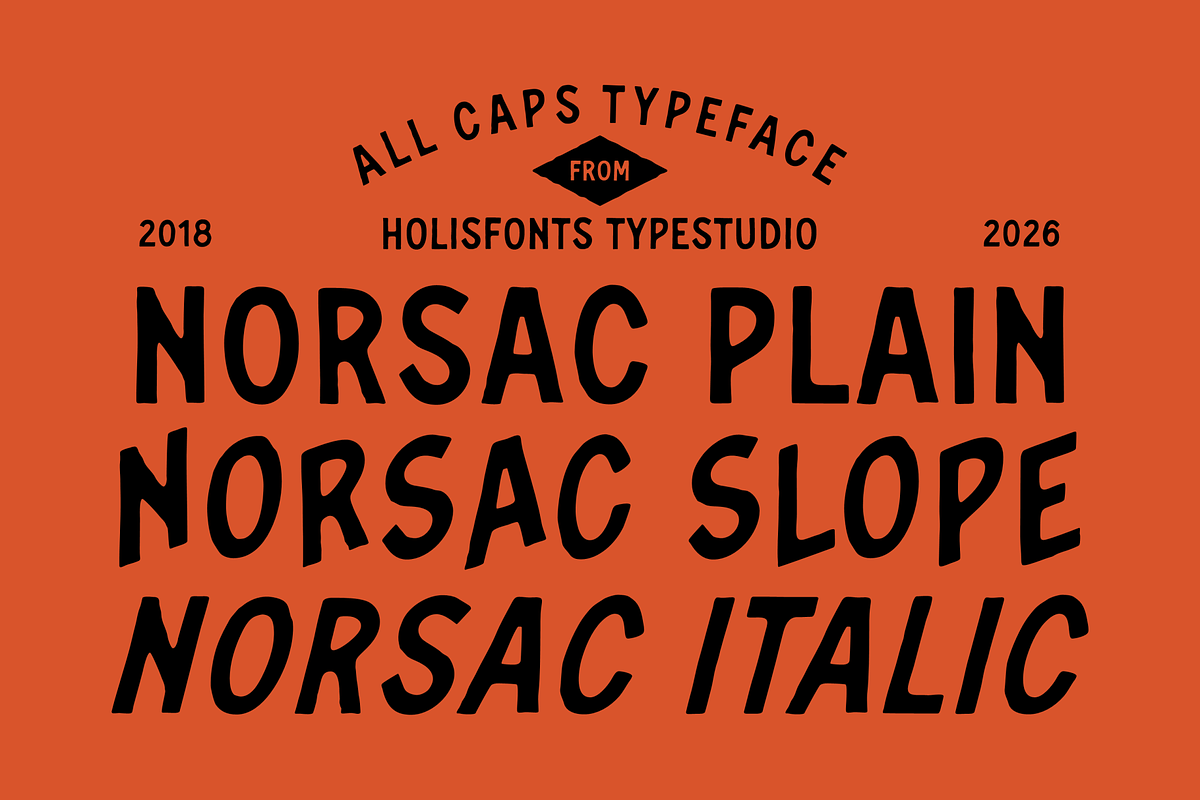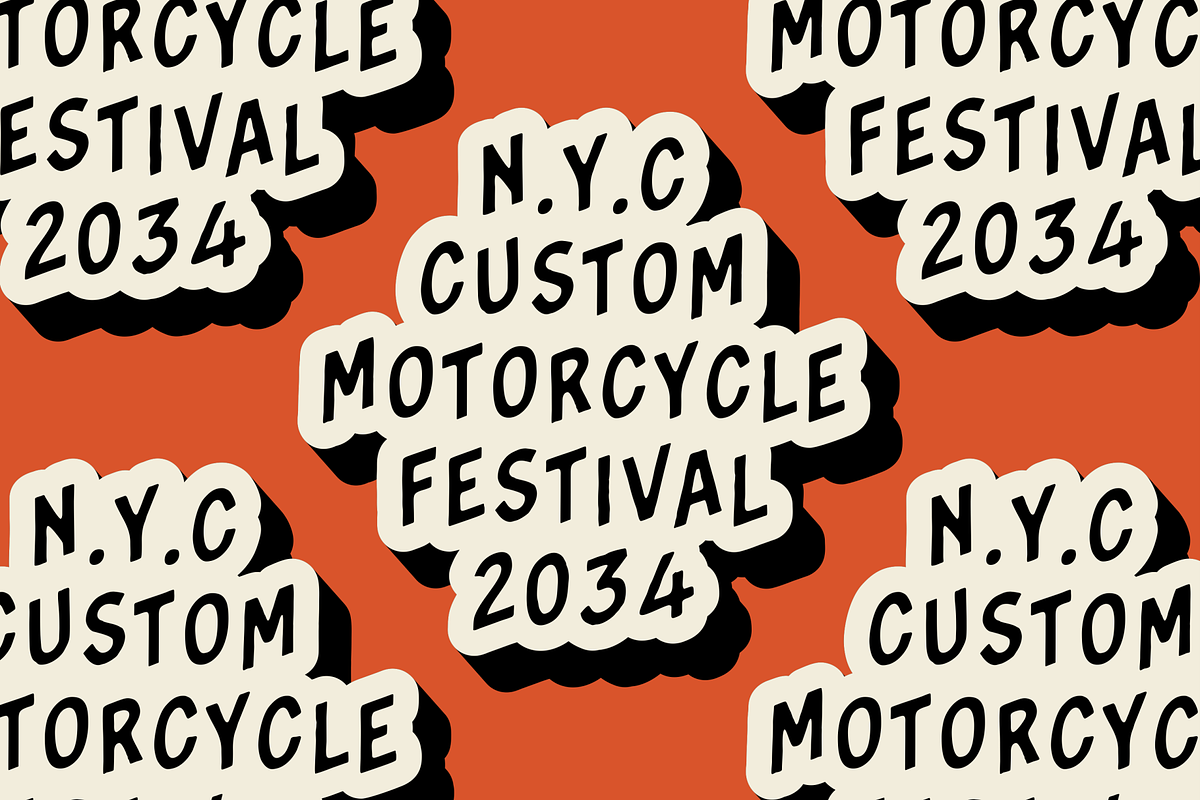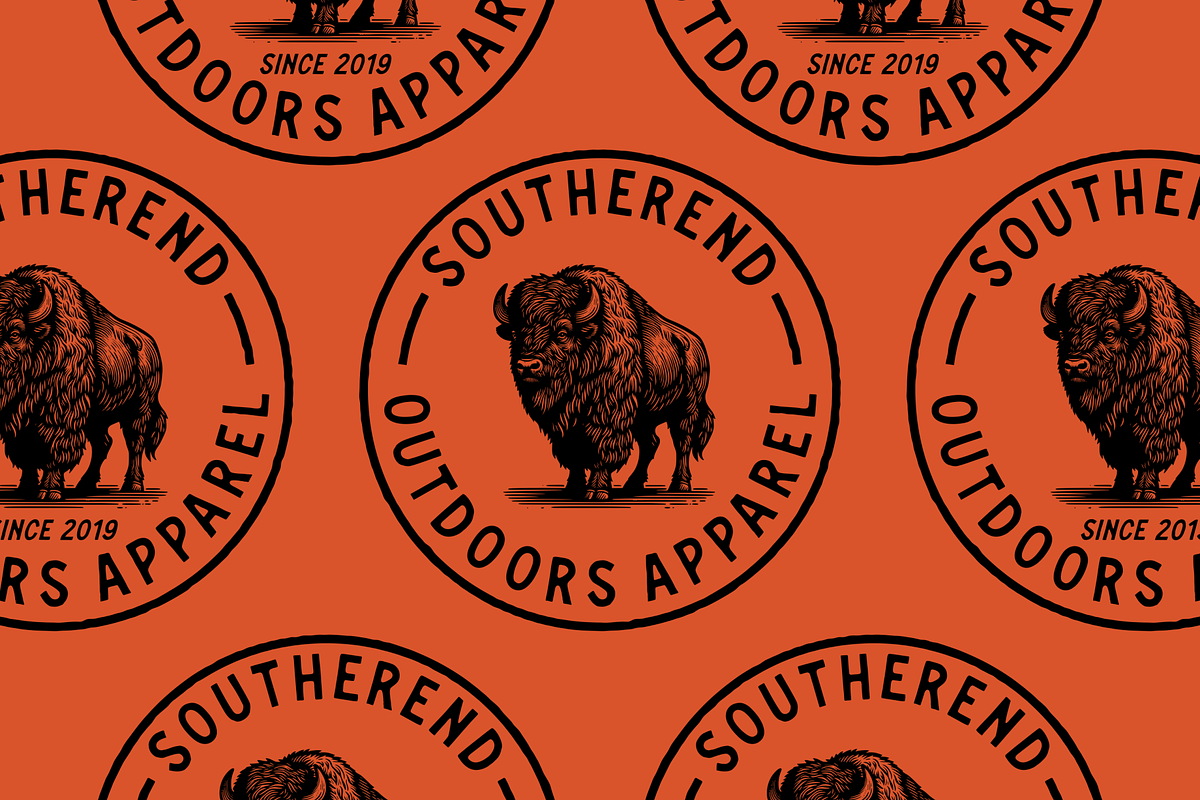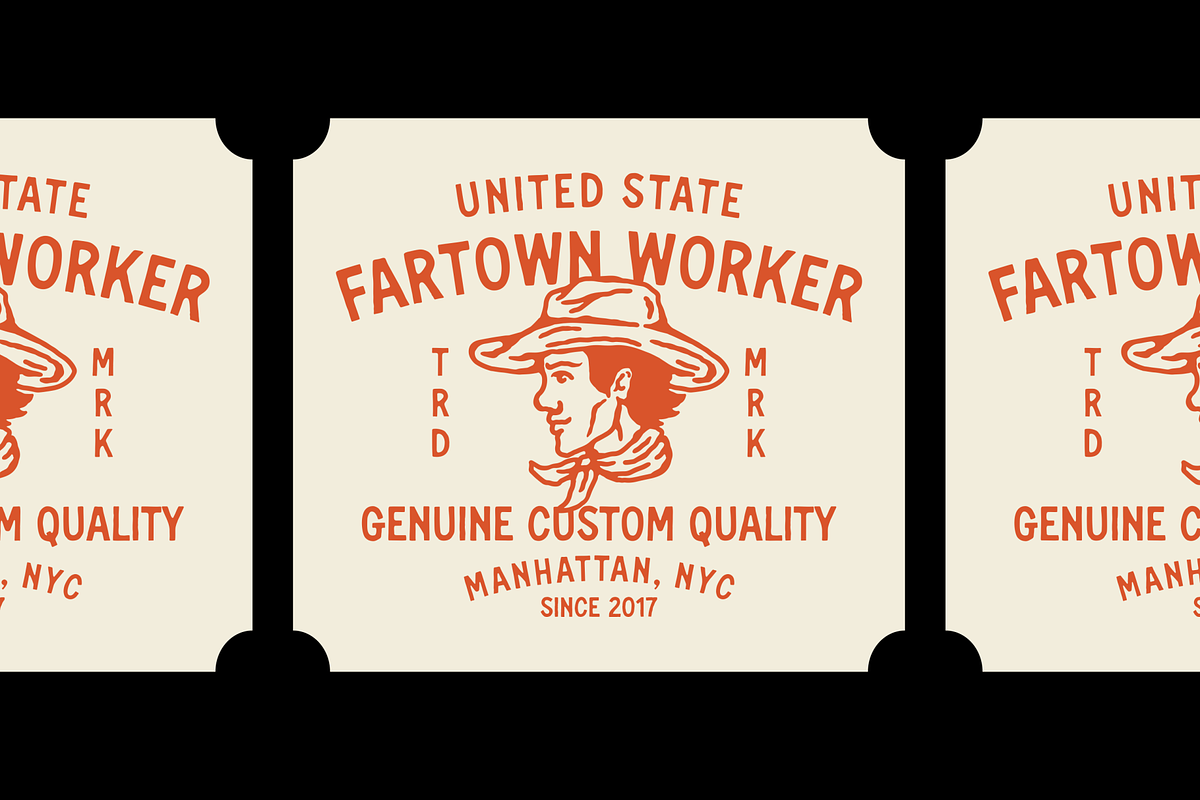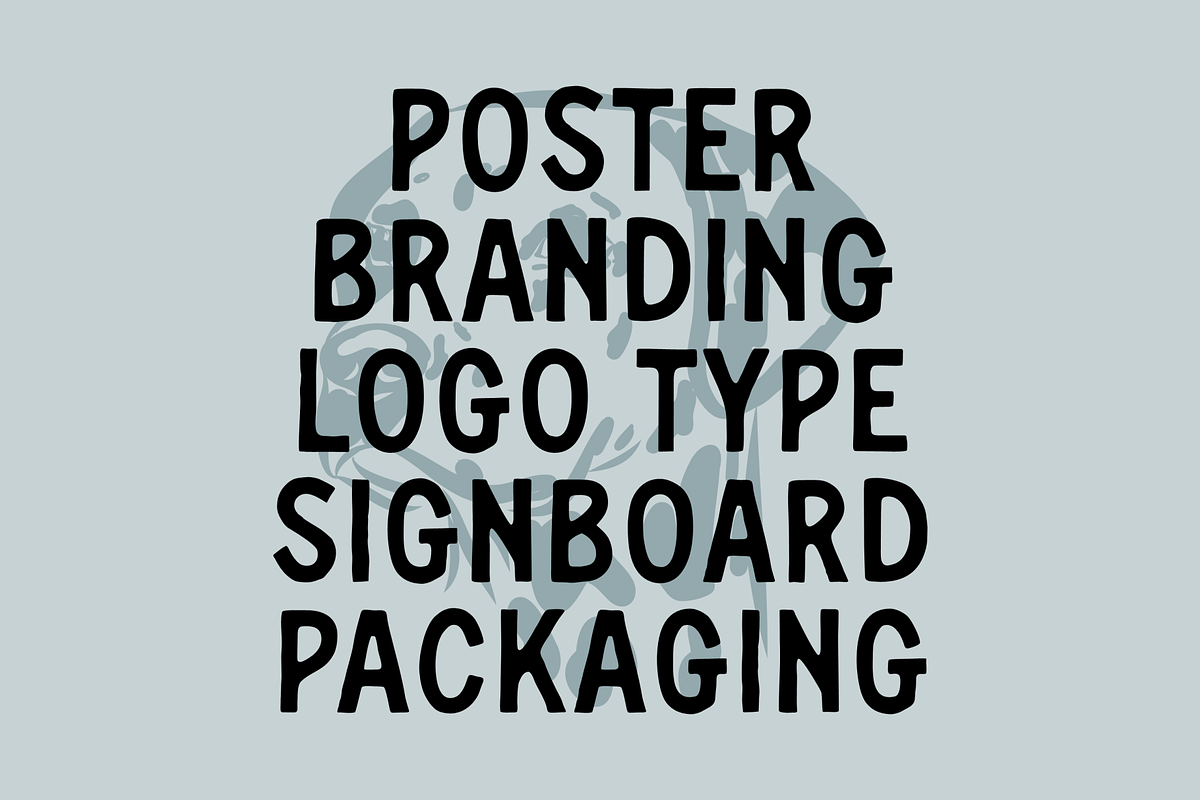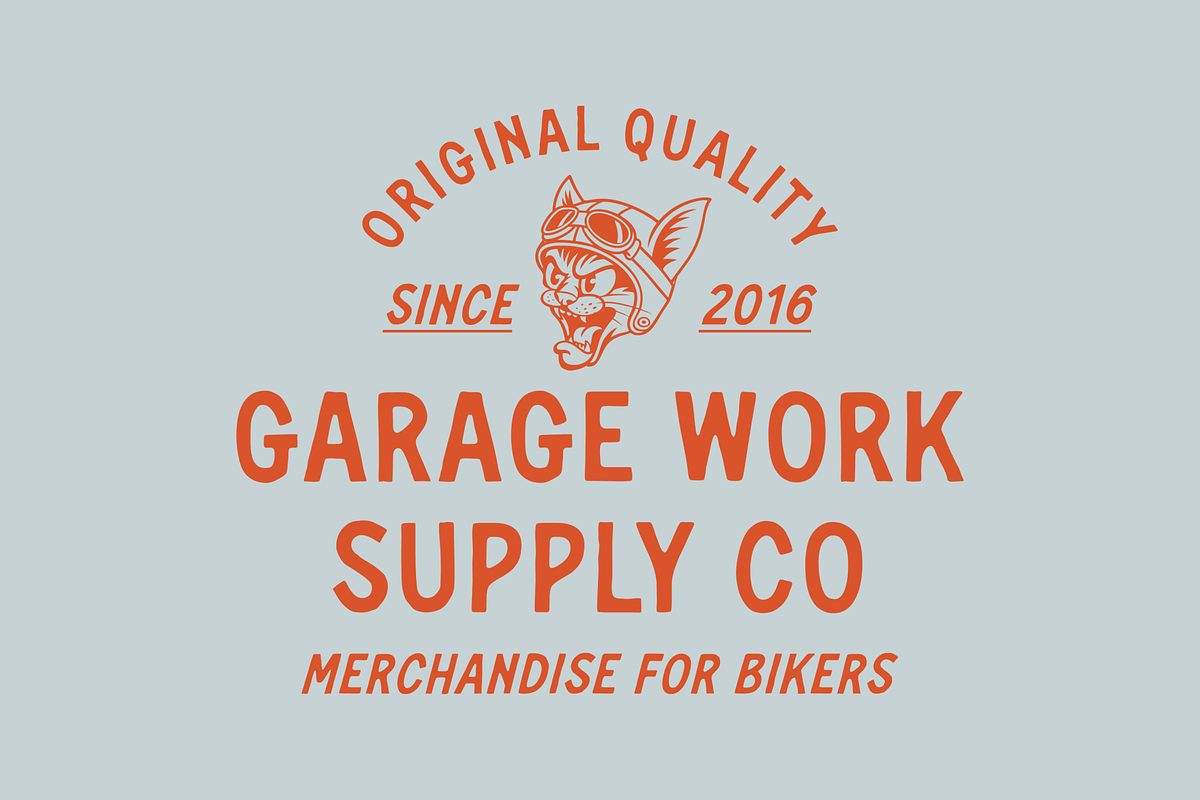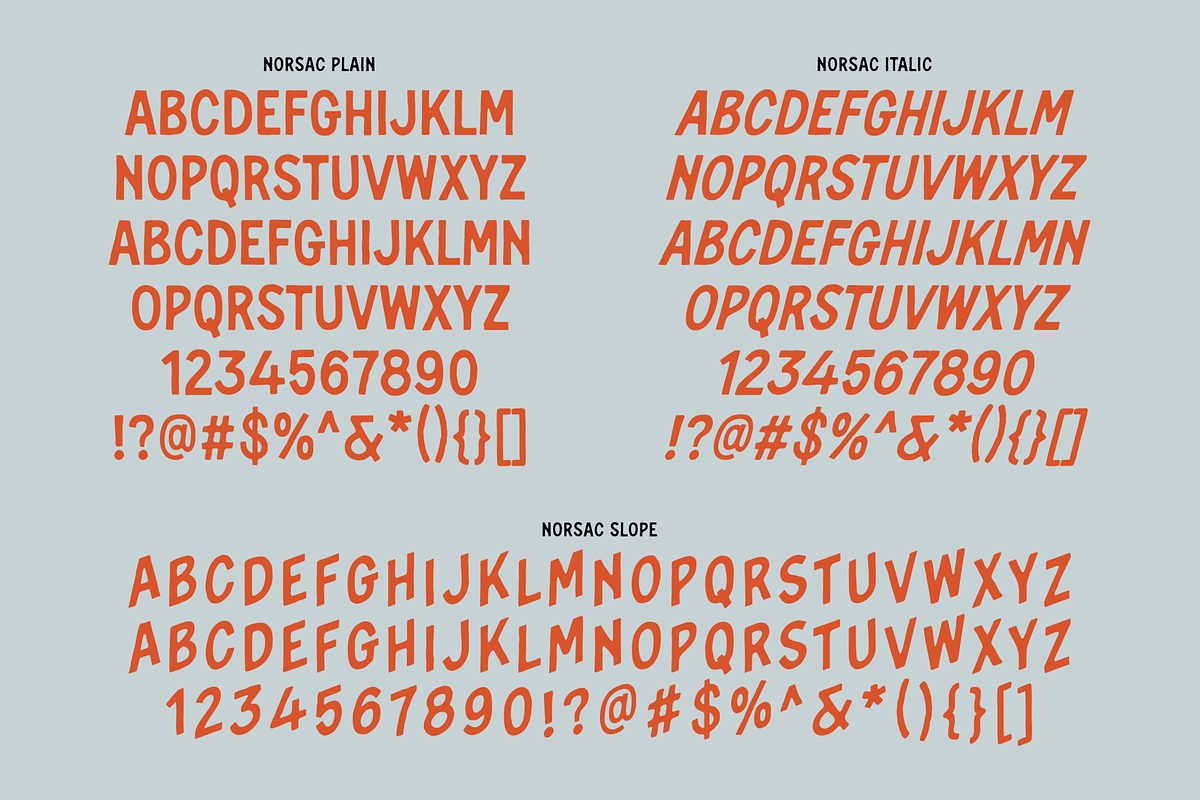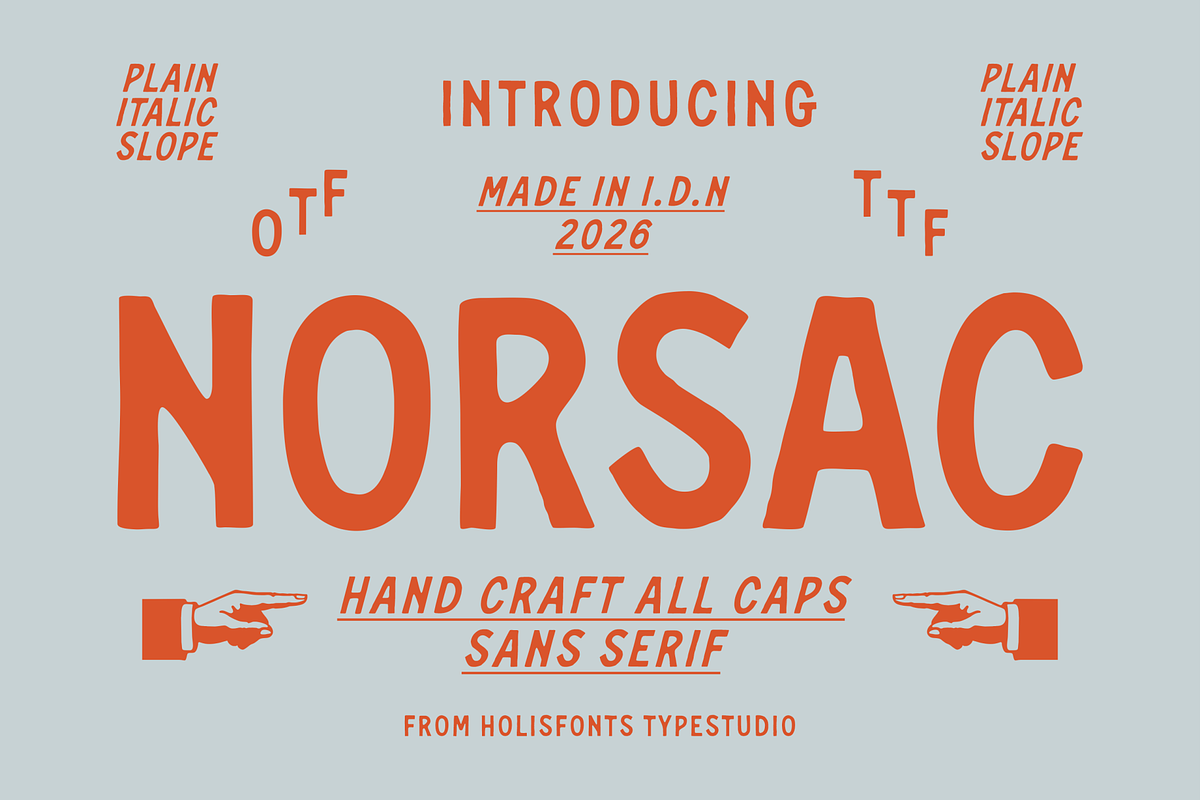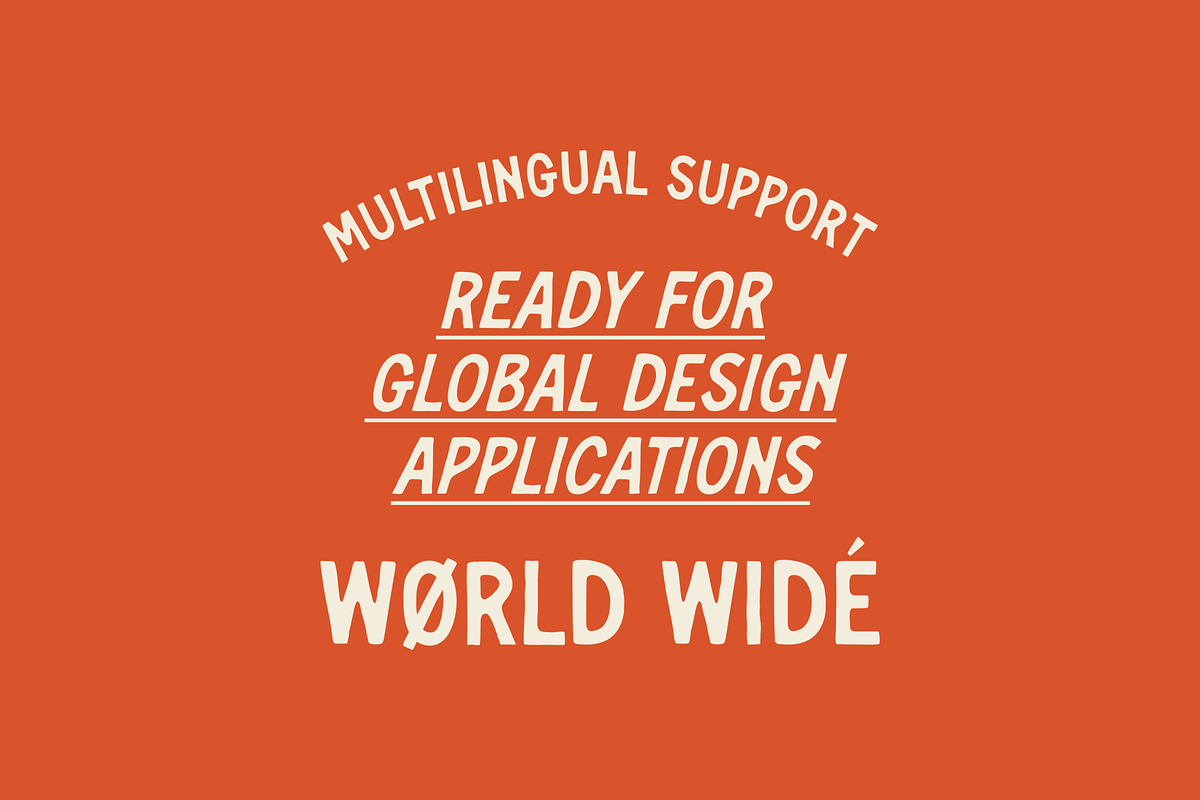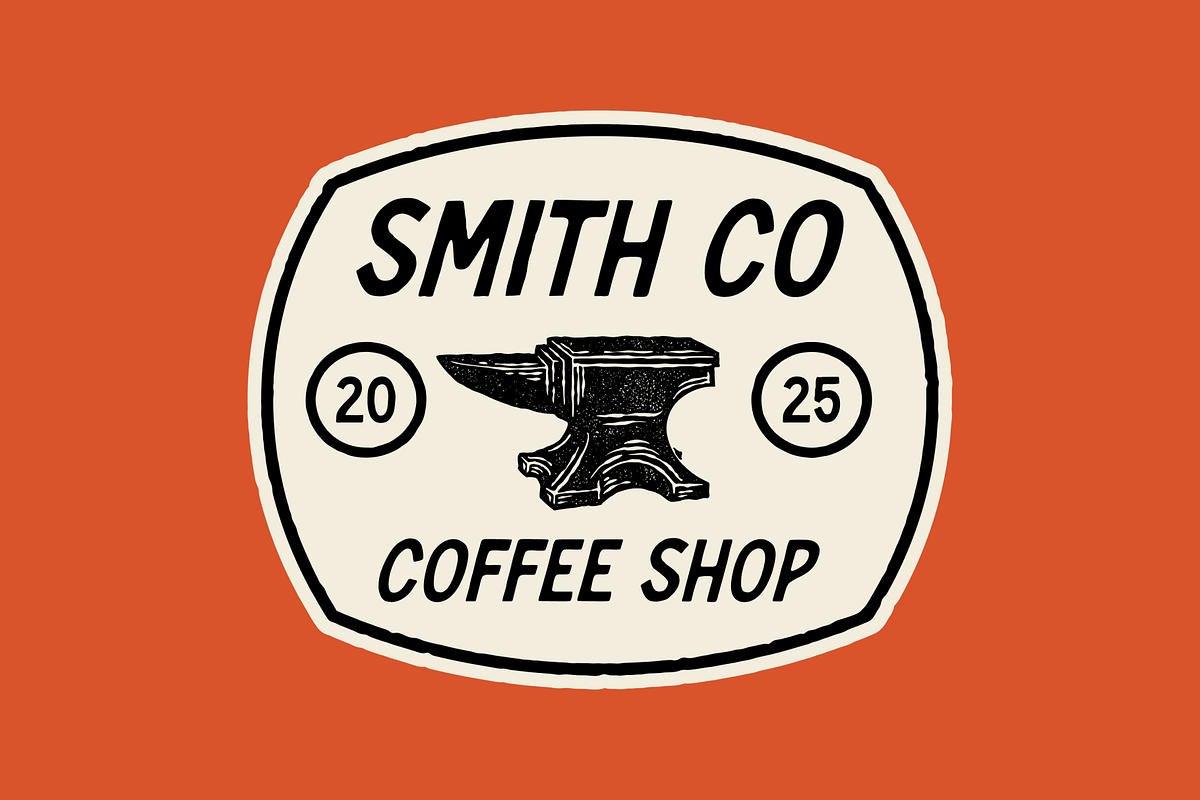
Norsac Hand-Drawn Vintage Sans Serif
Give your designs an authentic, handcrafted soul with Norsac, a versatile all-caps sans-serif typeface designed by Holisfonts Typestudio.
With its organic lines and warm, human feel, Norsac brings a rustic yet professional aesthetic to any project. It comes packed with three distinct styles—Plain, Italic, and Slope—allowing you to easily mix and match to create eye-catching typography hierarchy.
3 Styles Included: Plain (Regular), Italic, and Slope.
Hand-Crafted Aesthetic: Perfectly imperfect hand-drawn characters.
All Caps Versatility: Optimized for maximum impact in titles and display use.
Multilingual Support: Ready for global design projects.
Complete Character Set: Includes uppercase letters, numbers, and essential punctuation.
Vintage branding & logo design
Retro packaging and label design
Signboards, posters, and flyers
Merchandise, apparel, and t-shirt graphics
Social media quote templates and editorial design